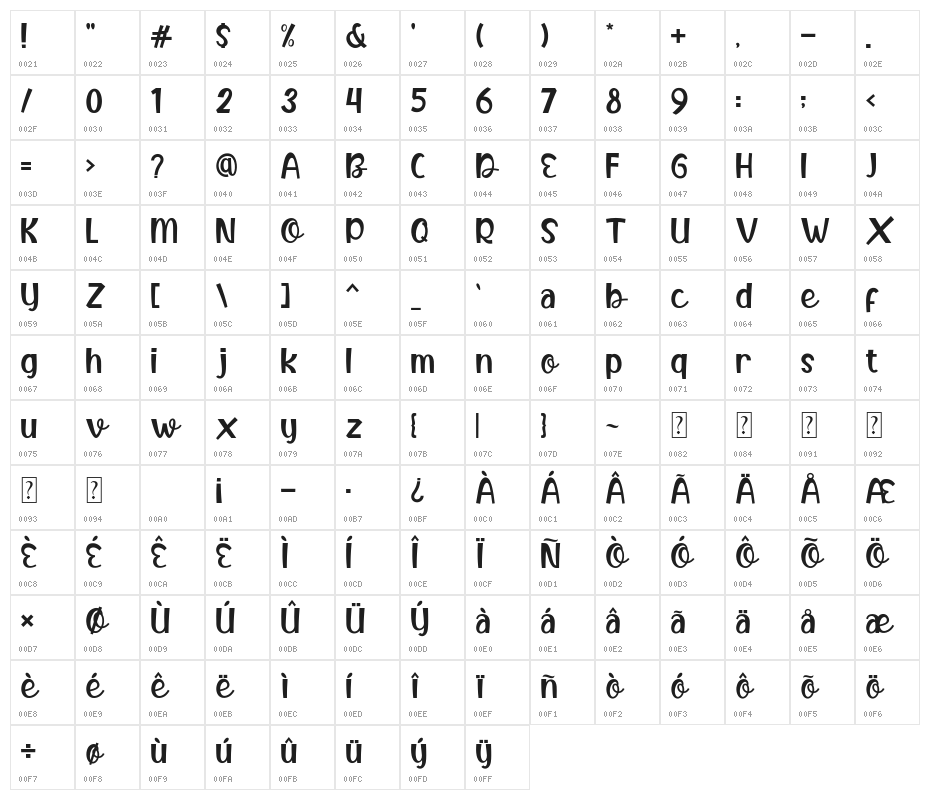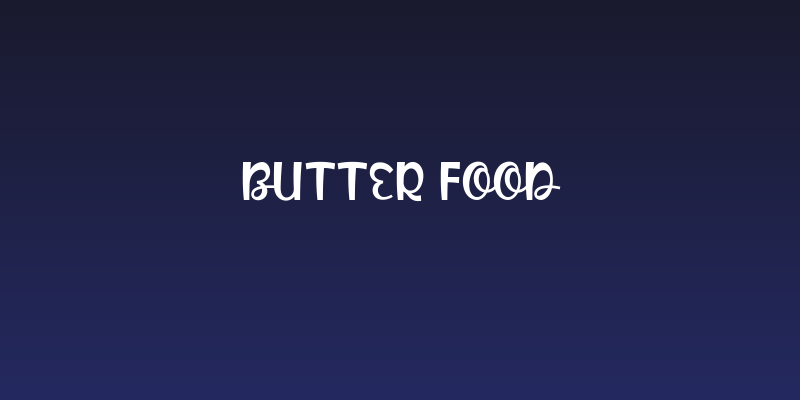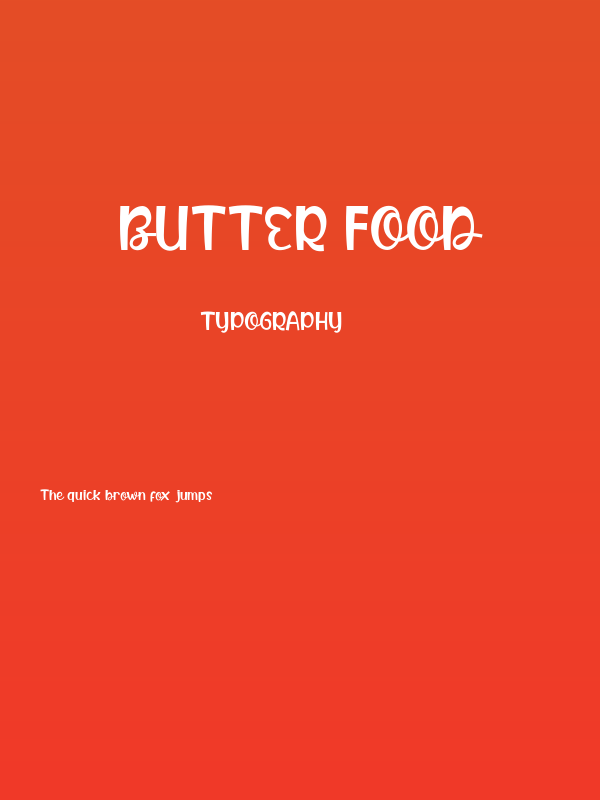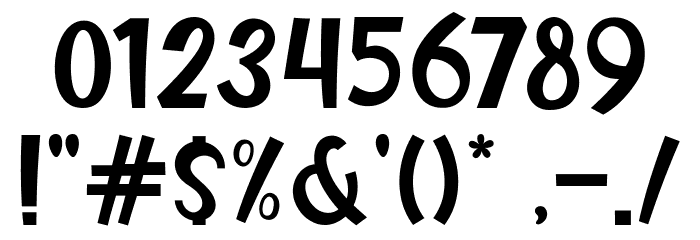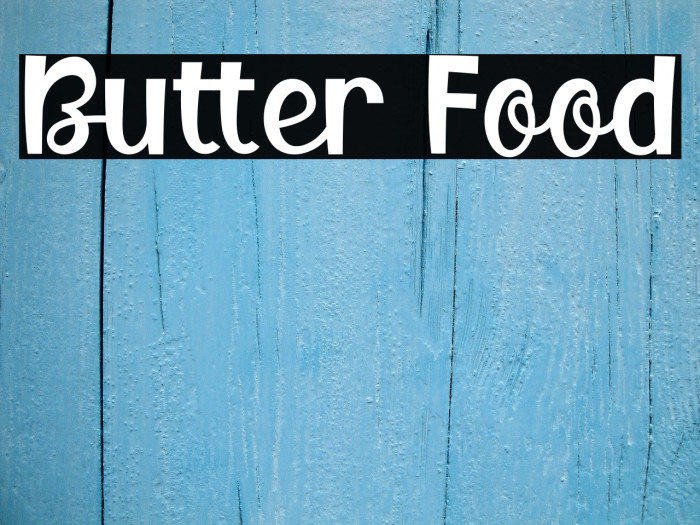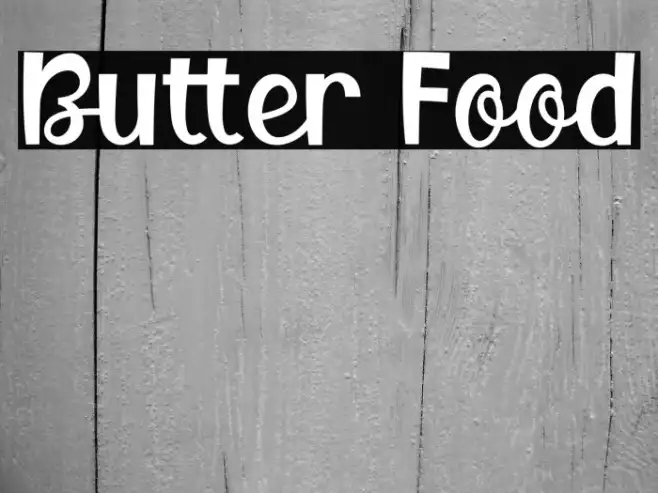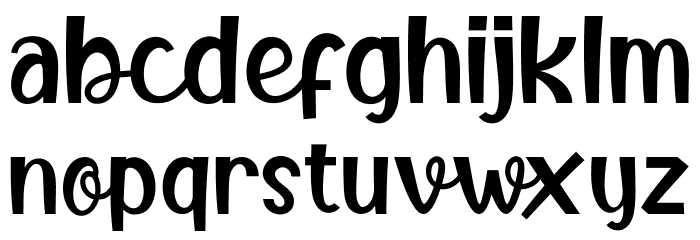
Butter Food Font
Butter Food Description
This playful and whimsical font features bold, rounded characters with a unique, flowing style. The uppercase letters have a distinctive flair, with some characters incorporating loops and curves that add a sense of movement and fun. The lowercase letters maintain this playful aesthetic, with a slightly more compact form. Numbers are bold and consistent with the overall style, making them easily legible. Special characters are creatively designed, matching the font's lively personality. This font is perfect for projects that require a touch of creativity and joy.